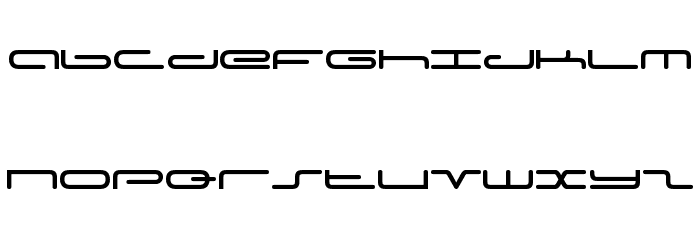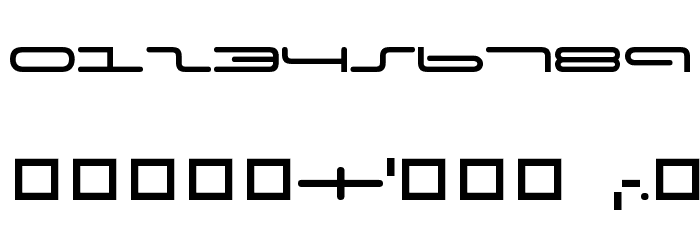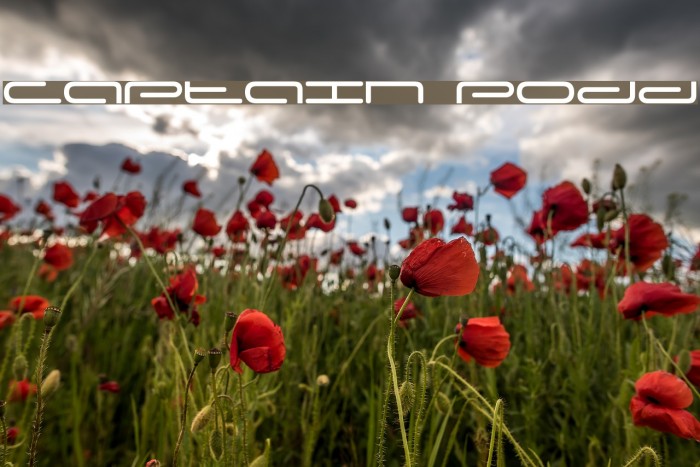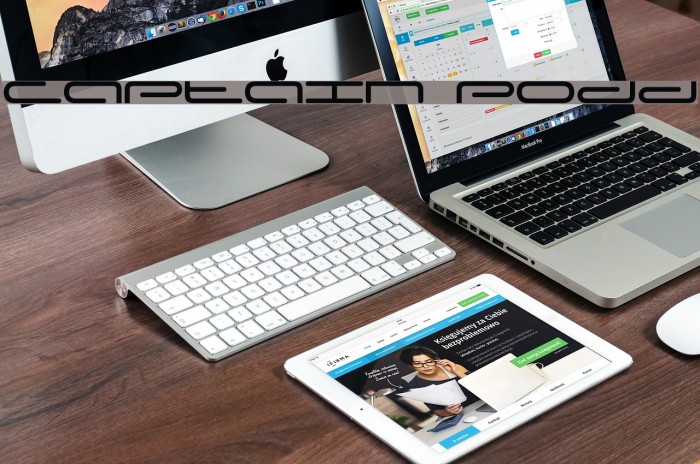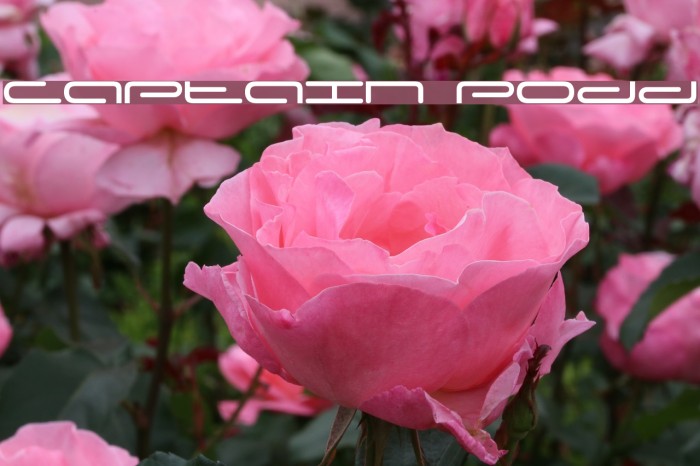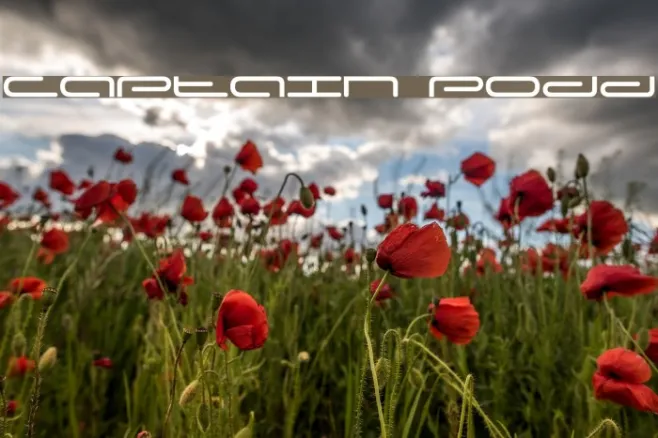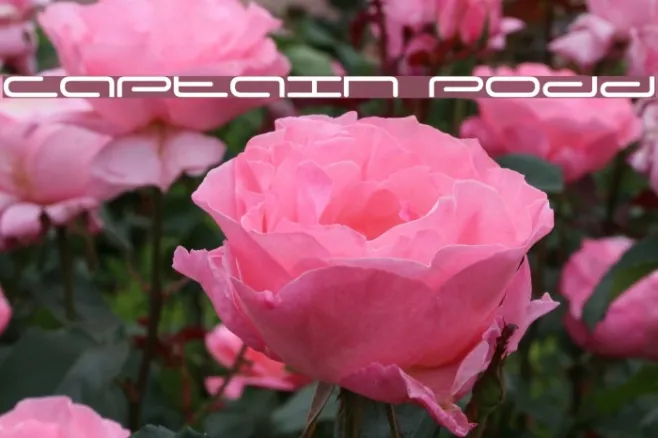
Captain Podd Font
This font features a futuristic and geometric design, characterized by its clean lines and rounded edges. The letters are constructed with a consistent stroke width, giving it a uniform appearance. The uppercase and lowercase letters share a similar style, maintaining a cohesive look throughout. The numerals and special characters follow the same design principles, ensuring harmony across all glyphs. This font's modern aesthetic makes it suitable for projects that require a sleek and contemporary feel.
A futuristic, geometric font with clean lines and rounded edges.
- Proposed Projects: Ideal for tech branding, sci-fi themed designs, modern posters, and digital interfaces.
- Overall Style: Futuristic
- Use Case: Logos, Headlines, Digital interfaces